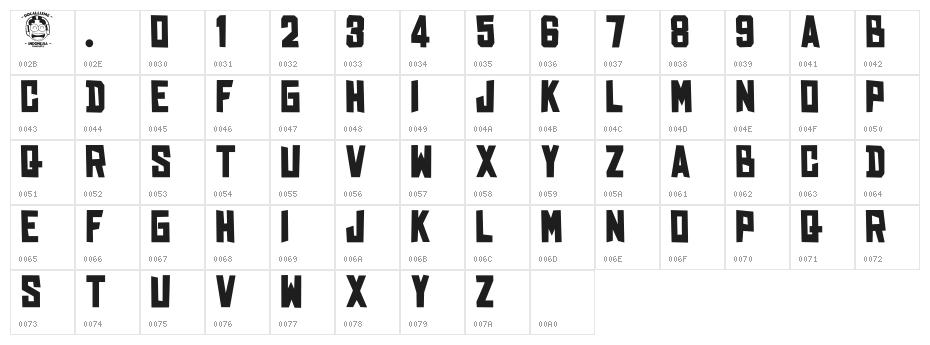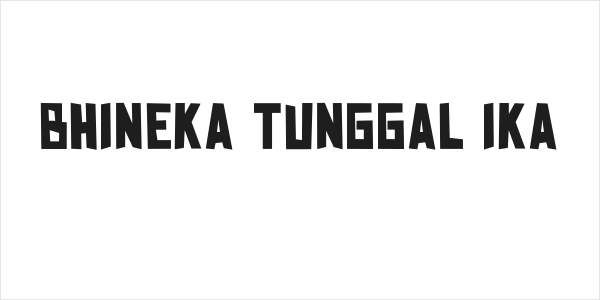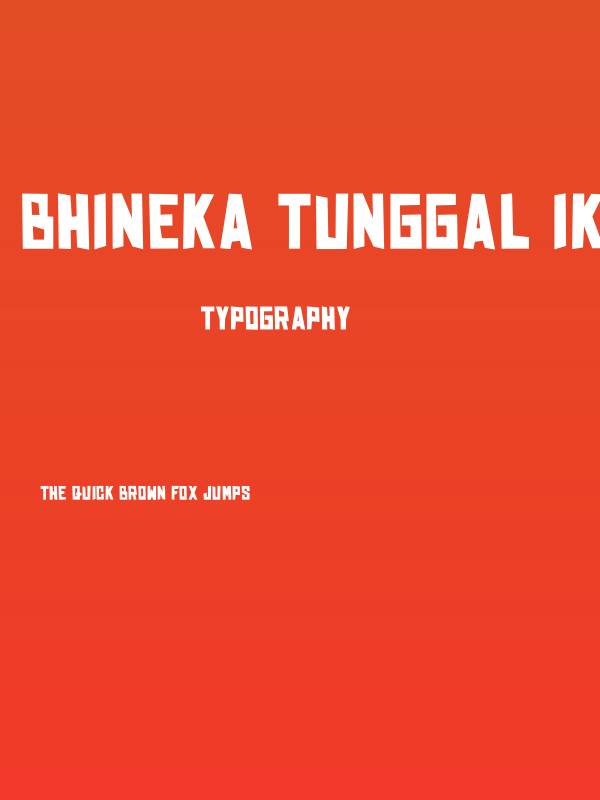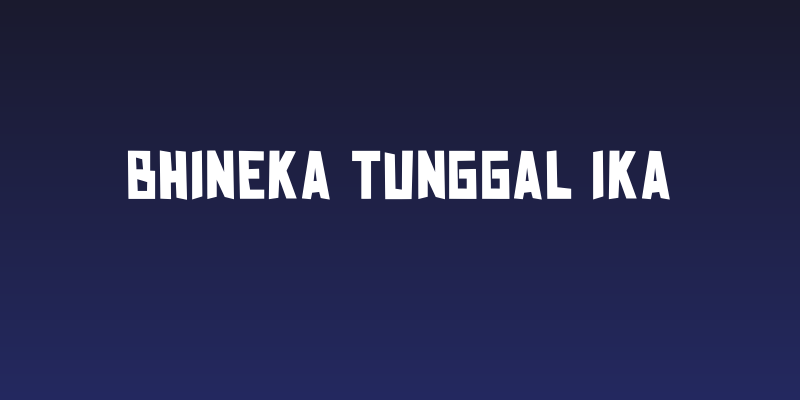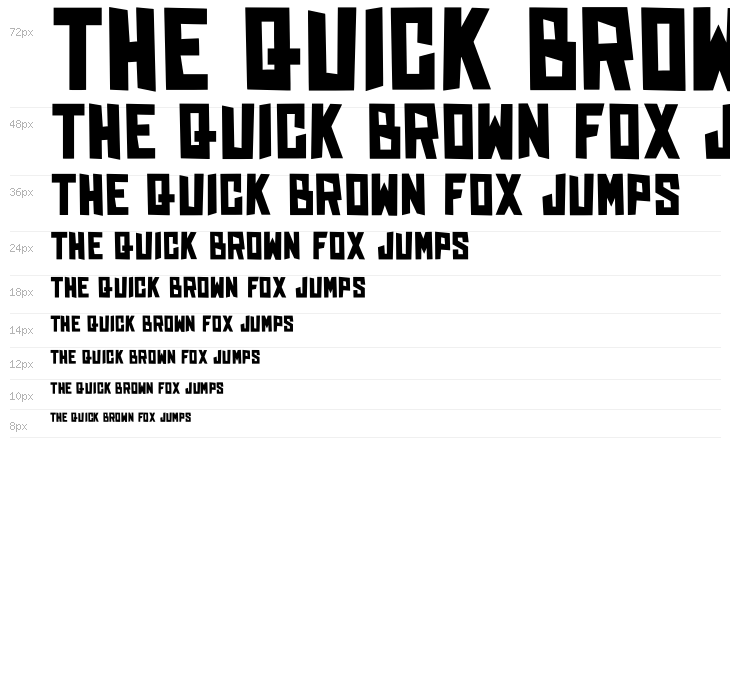
BHINEKA TUNGGAL IKA Font
BHINEKA TUNGGAL IKA Description
This font features bold, angular letters with a strong, geometric presence. The uppercase characters are designed with sharp edges and a blocky style, giving them a modern and assertive look. The numbers follow a similar design, maintaining consistency across the typeface. The overall appearance is striking and impactful, making it suitable for attention-grabbing headlines or titles. The font's unique style is characterized by its heavy weight and solid structure, which can convey a sense of strength and stability.
| Proposed Projects | Ideal for posters, logos, branding, and any project requiring a strong visual impact. |